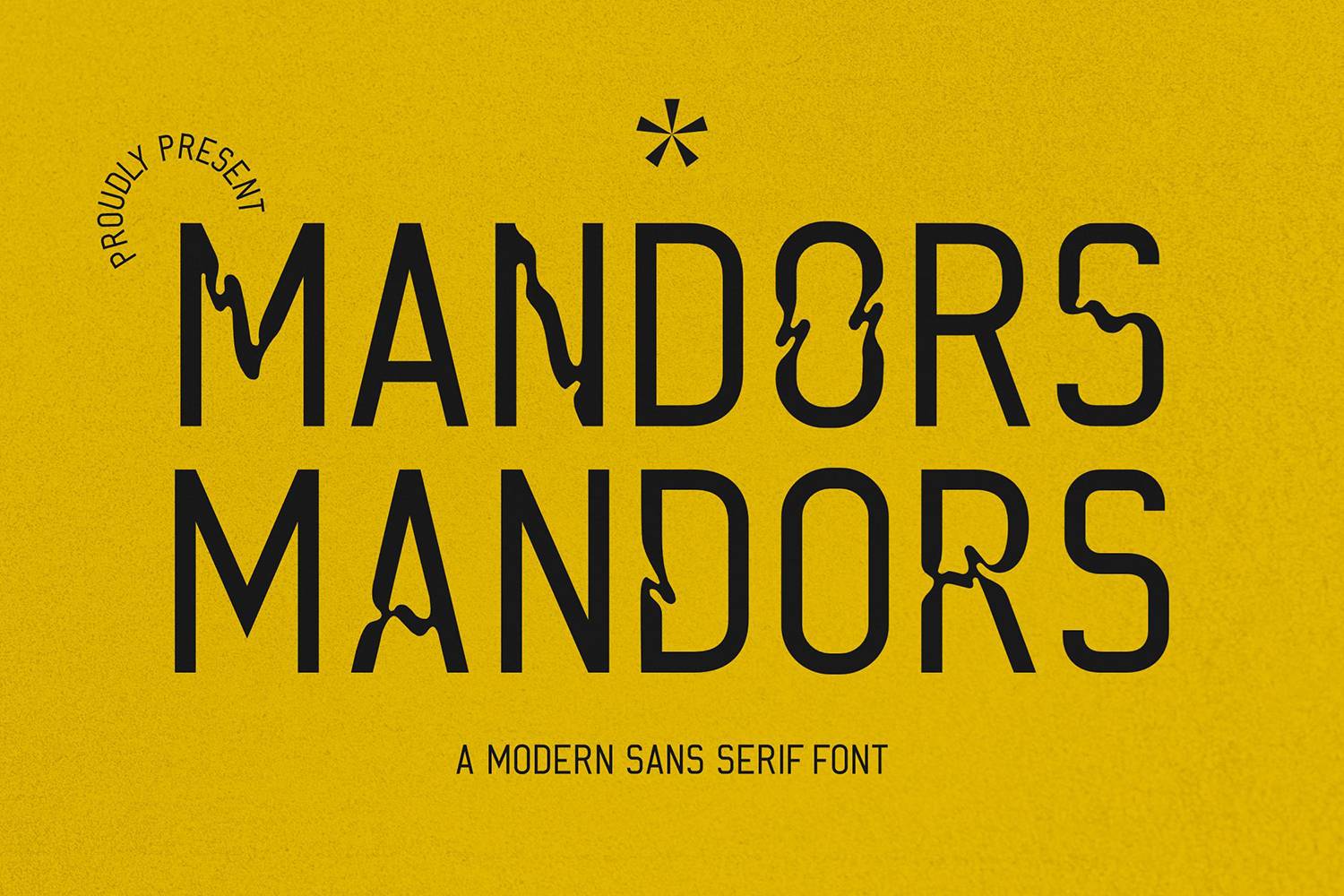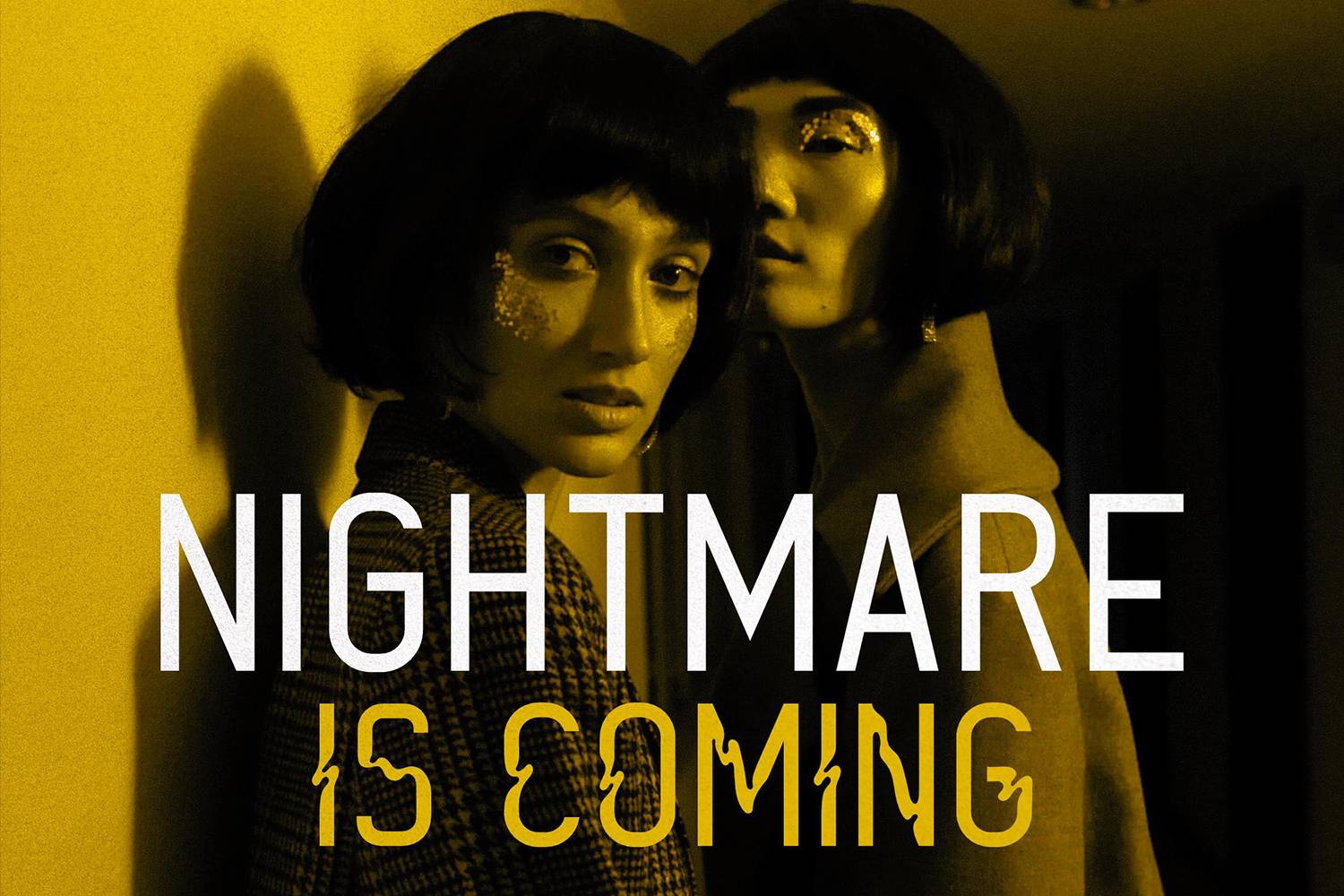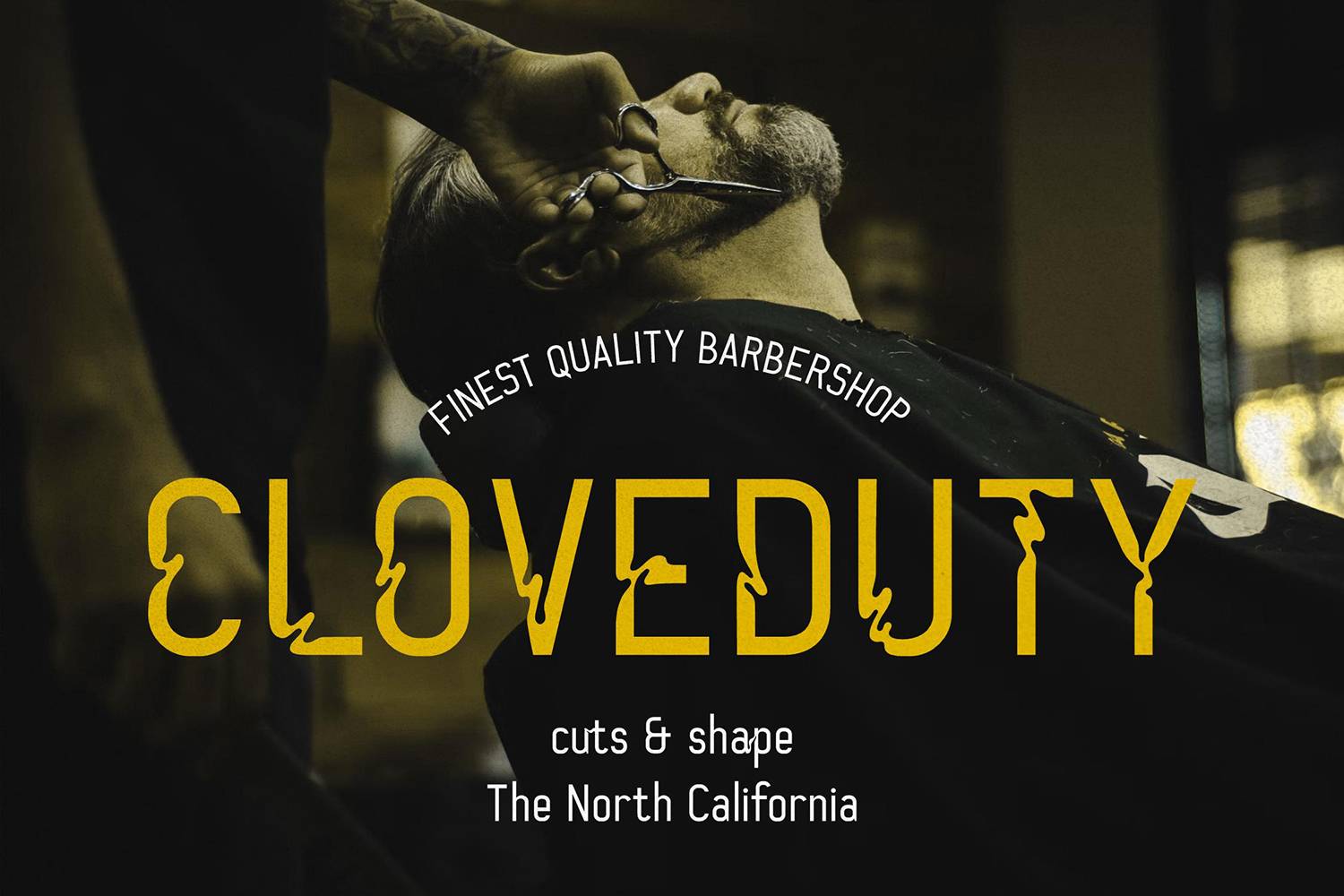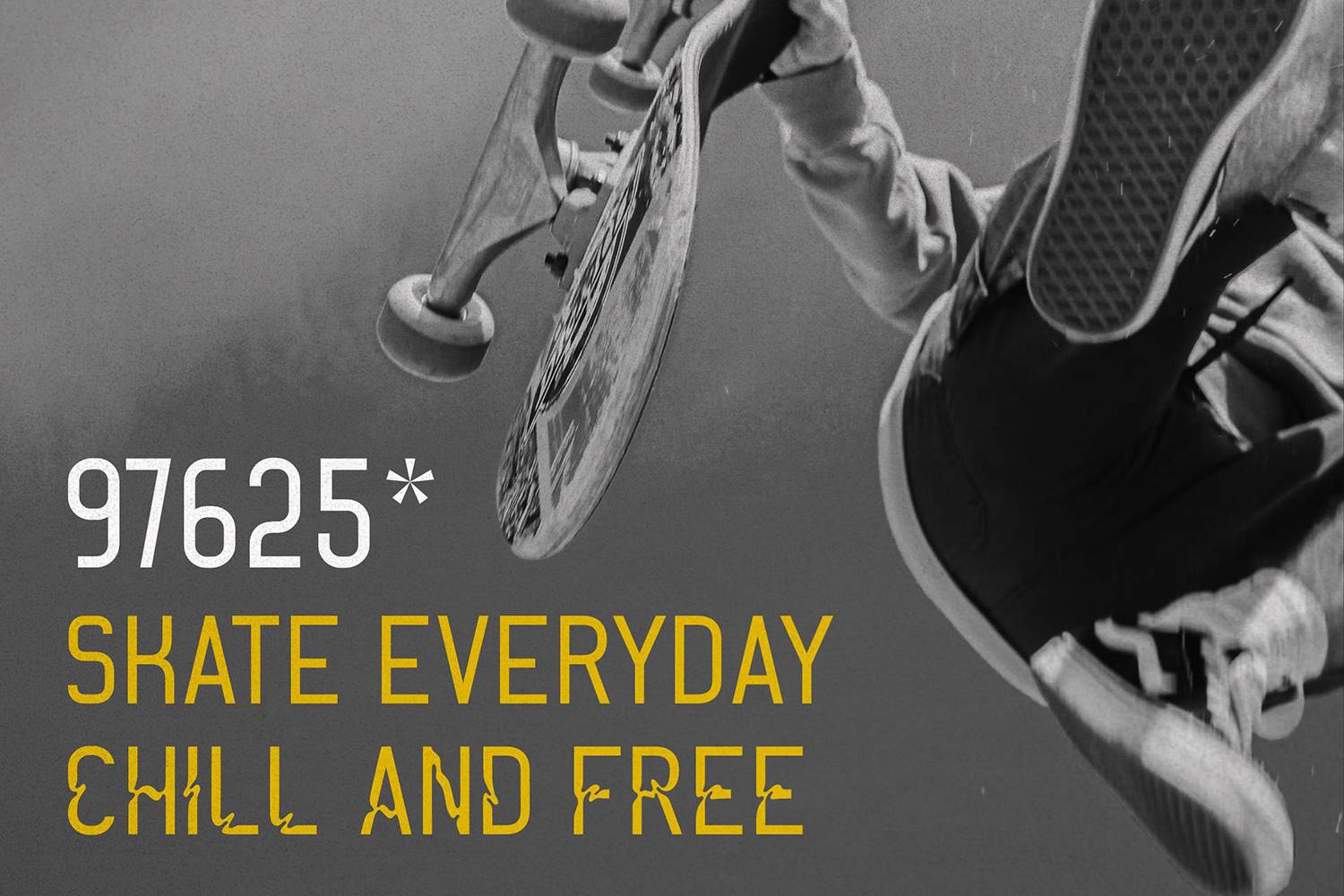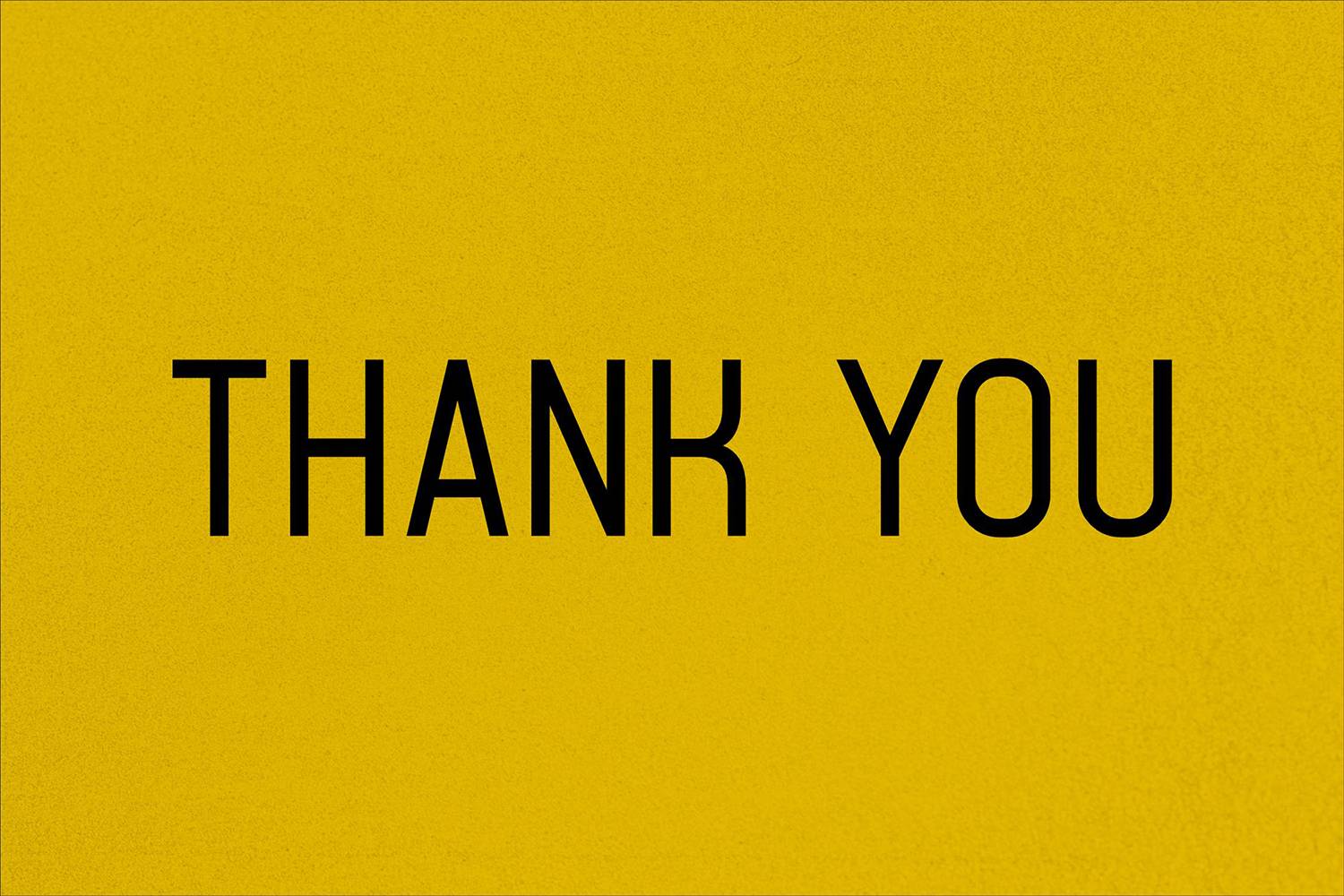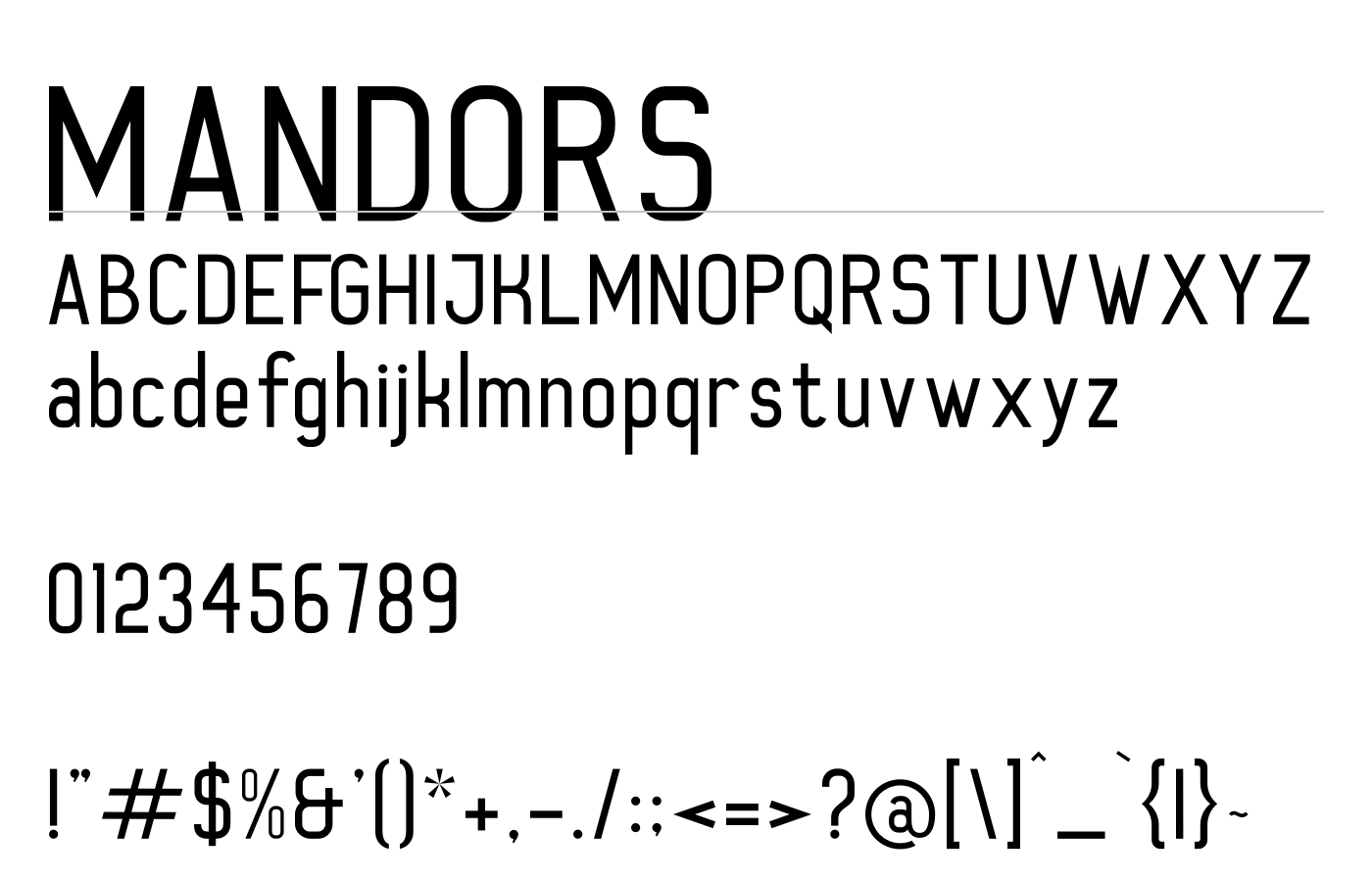
Mandors is a narrow, sans serif font characterized by its tall, condensed letterforms and clean, uniform strokes that create a modern and minimalist look. Its consistent weight and geometric shapes give it a sleek and professional feel, making it ideal for branding, headlines, and editorial design where space efficiency and clarity are key. This font works well for contemporary projects aiming to convey sophistication with a touch of urban edge.
Mandors Font
About Mandors Font